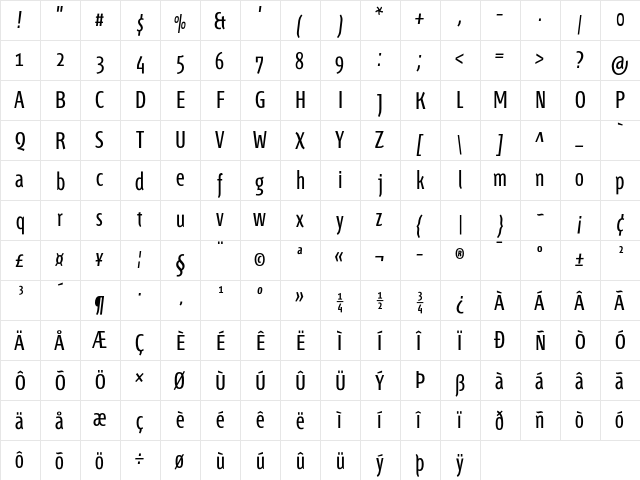
Fontana ND Ee OsF Normal
Design Context for Fontana ND Ee OsF Typeface
Fontana ND Ee OsF is a composed and adaptable typeface that performs quietly and consistently across a wide range of design contexts.